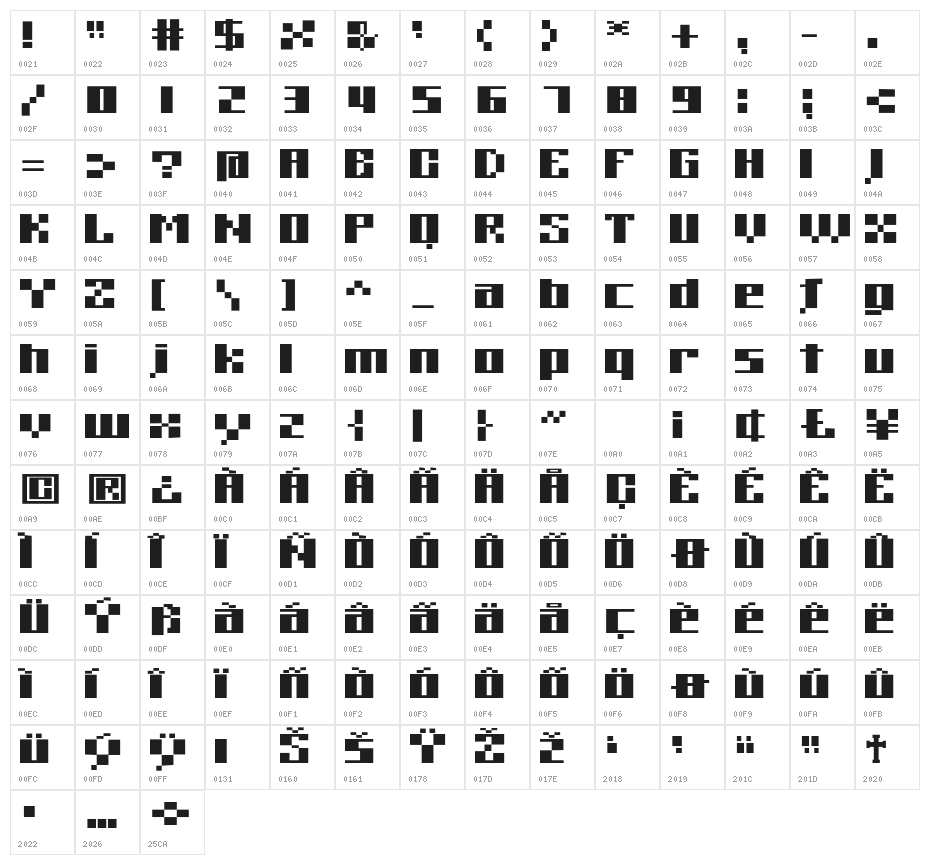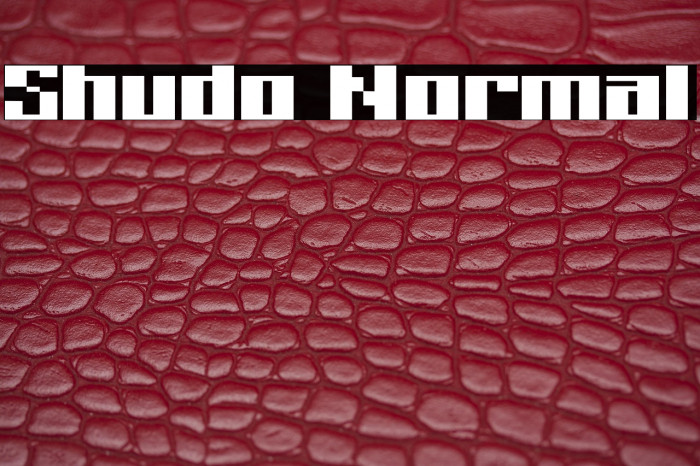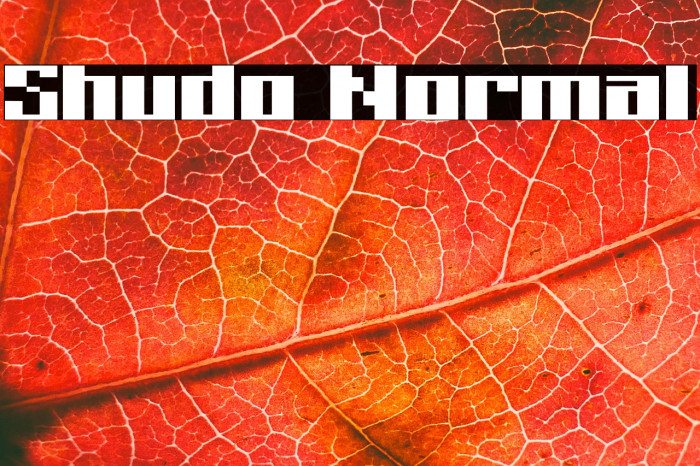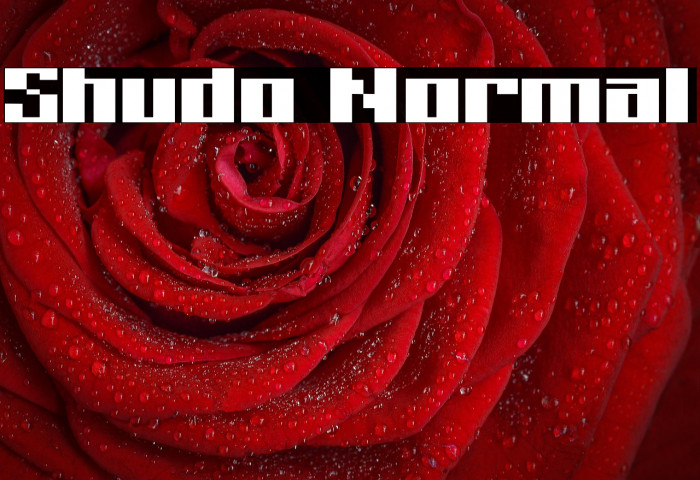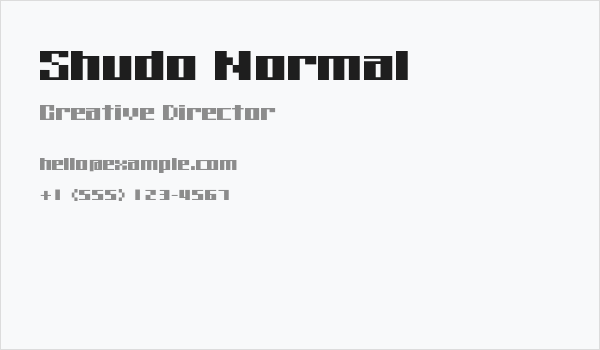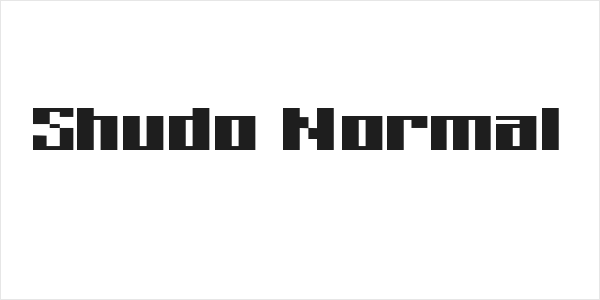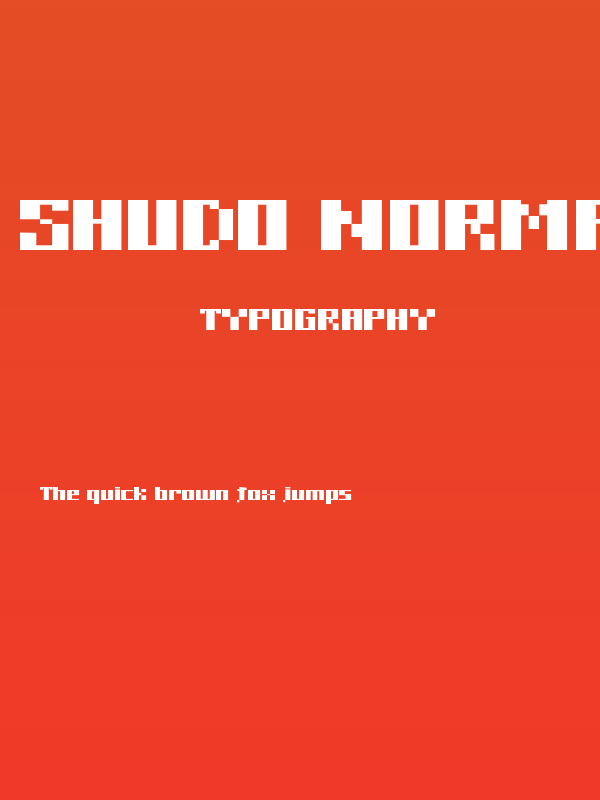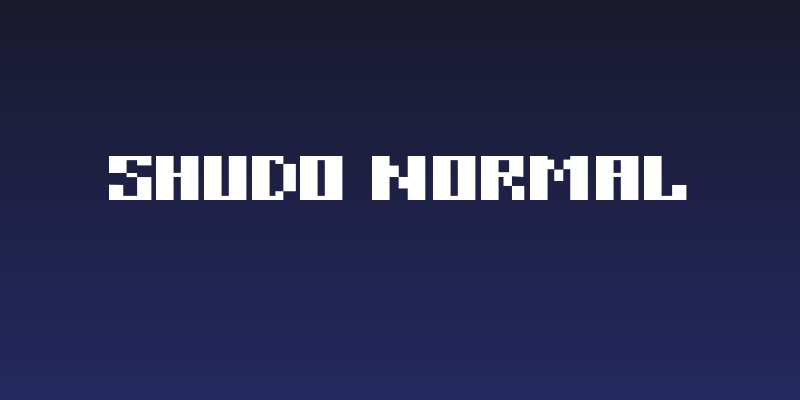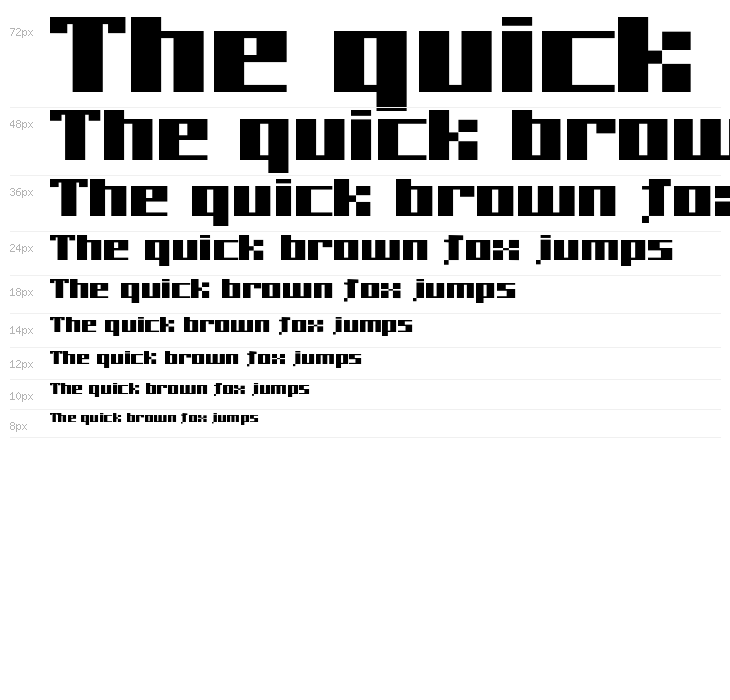
Shudo Normal Font
Shudo Normal Description
This font exhibits a bold, pixelated style reminiscent of early digital or video game typography. Each character is constructed with a blocky, grid-like appearance, giving it a distinctly retro and digital aesthetic. The uppercase and lowercase letters maintain a consistent height and width, contributing to a uniform look across the text. The numerals and special characters follow the same pixelated design, ensuring cohesion throughout. The font's geometric structure is both eye-catching and functional, making it suitable for projects that aim to evoke nostalgia or a digital theme.
| Overall Style | Retro, Digital |
| Proposed Projects | Ideal for video game graphics, retro-themed posters, digital art projects, and any design work that seeks to capture a nostalgic or tech-inspired feel. |